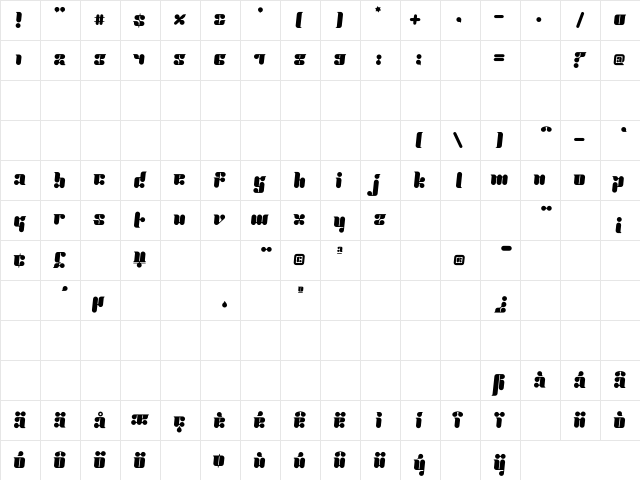
Proton Alternate Free Font
Proton Alternate
Style: Alternate
Proton Alternate Family
Complete Proton Alternate glyph index. Displaying only characters natively supported by Proton Alternate font.
Design Context for Proton
Proton is a composed and adaptable typeface that performs quietly and consistently across a wide range of design contexts.